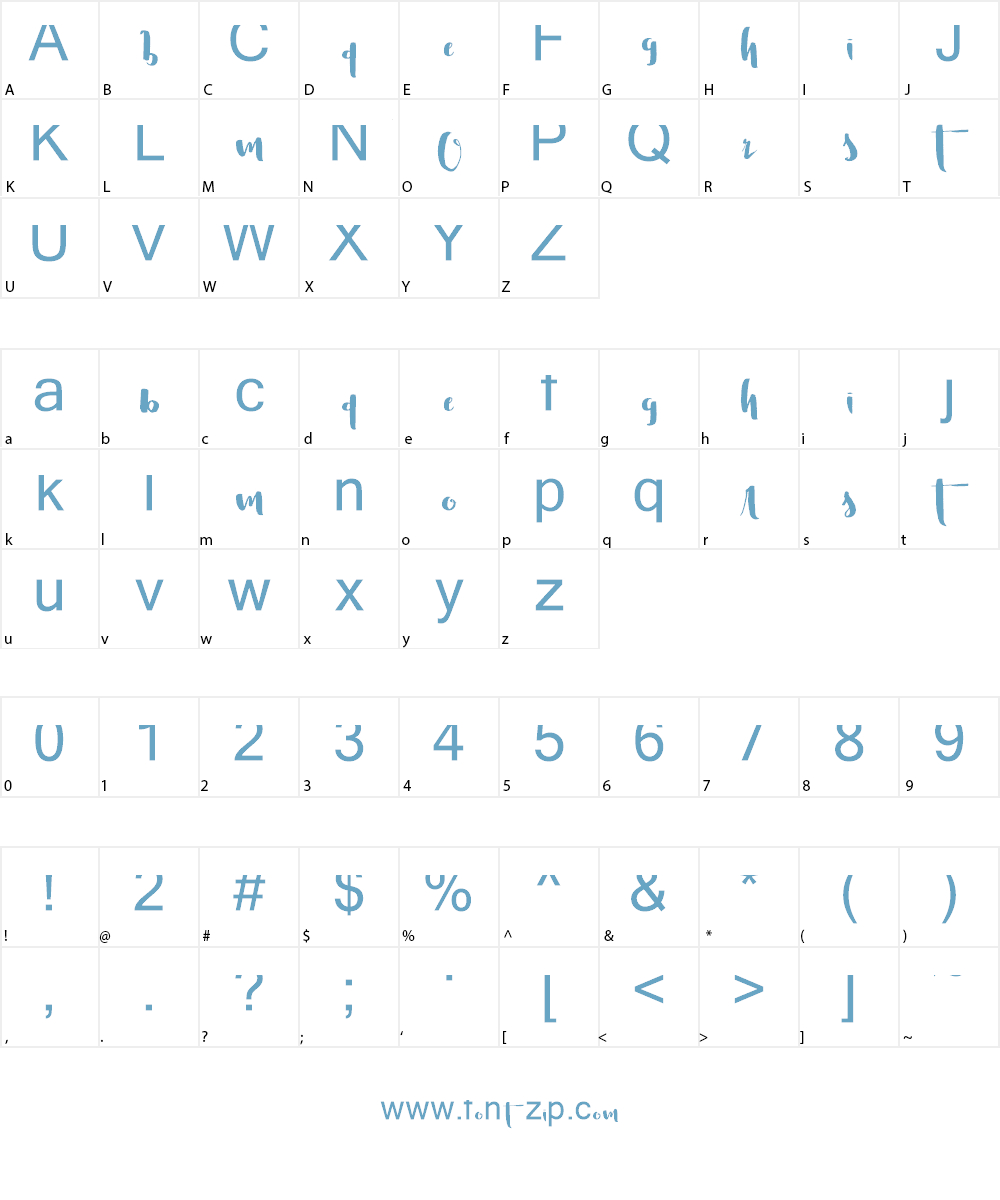
Mister Brightstride is our very first brush script calligraphy typeface. The letters were drawn with a Tombow Dual Brush pen and feature a ton of attitude. Baselines vary between the capital and lowercase letters, and several lowercase letters are alternates. Although not visible in the preview below, the typeface has indeed been kerned to improve the visual impression of all your projects.